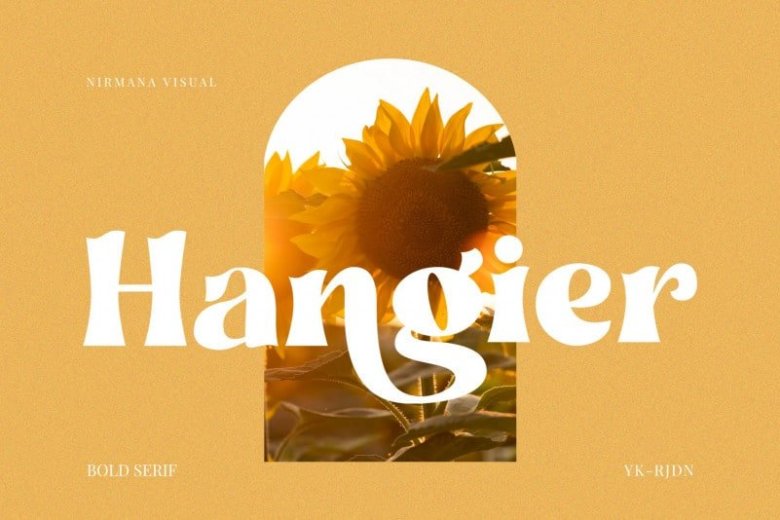
Hangier Font
Hangier Serif Font is a modern and elegant serif Typeface created by Nirmana Visual – Sigit with the desire for a quality, elegant, classy font that can still be used in all design needs. It’s a very versatile font that works great in large and small sizes.
This Beautiful font perfect for branding projects, Logo design, Clothing Branding, product packaging, magazine headers, or simply as a stylish text overlay to any background image.